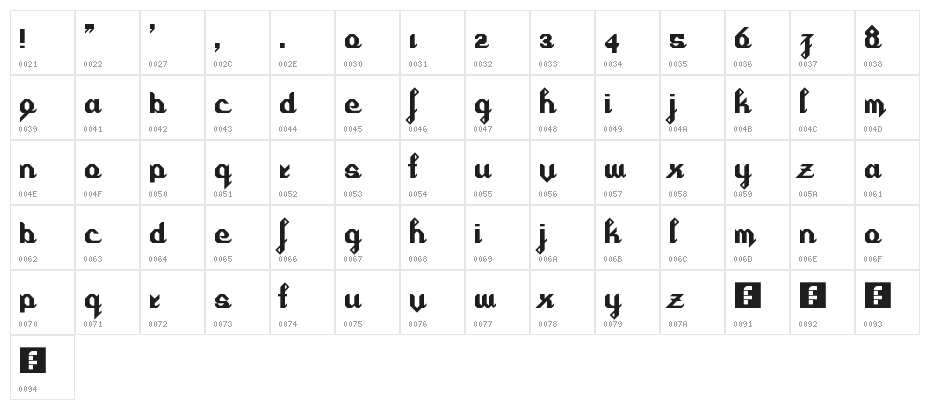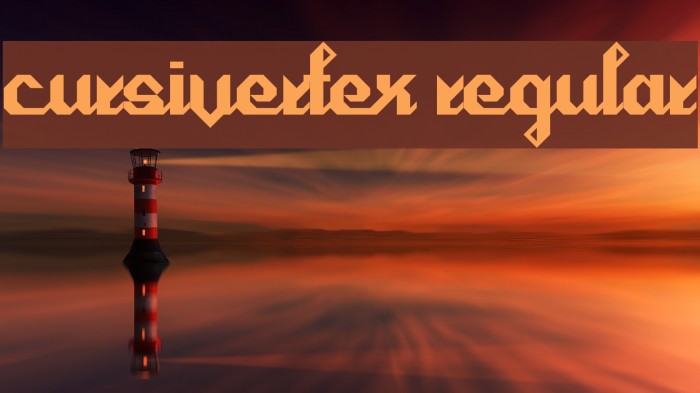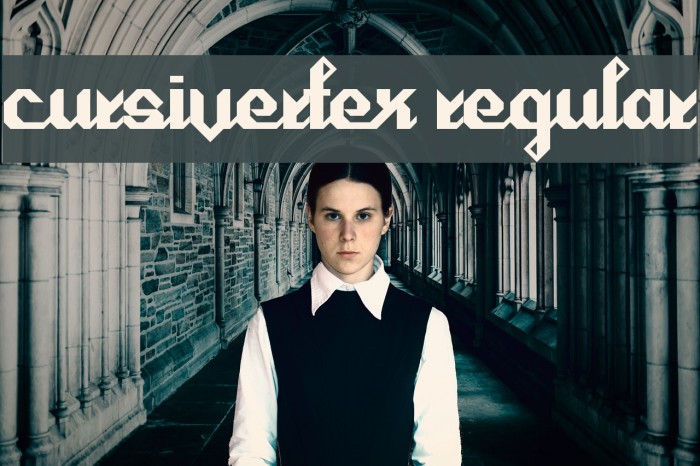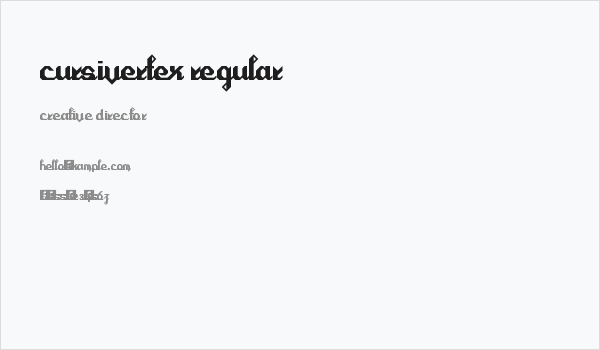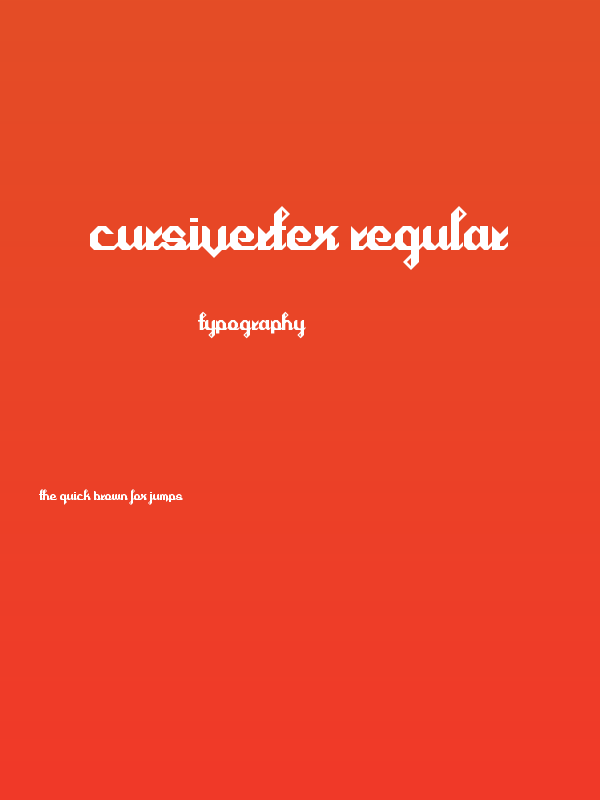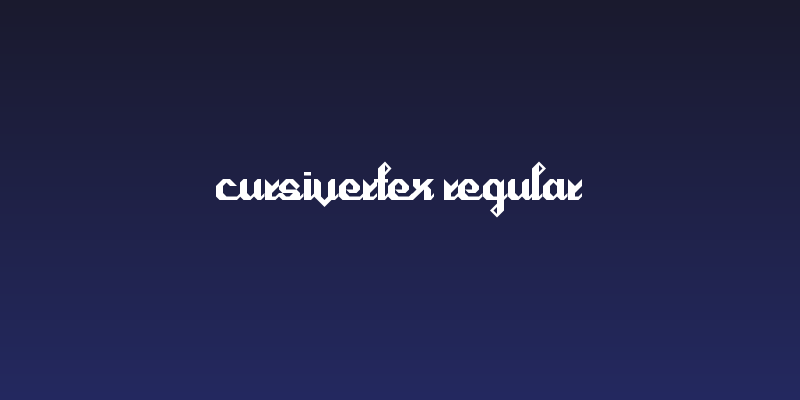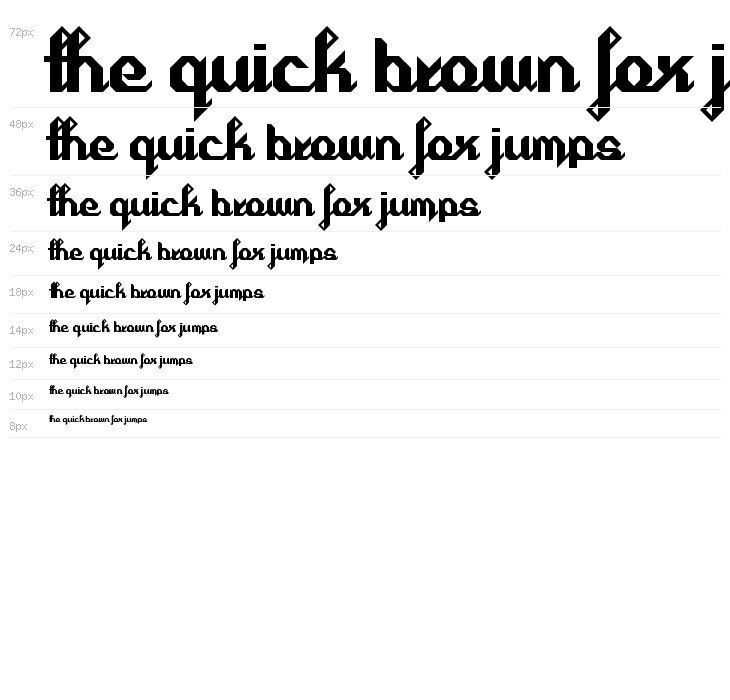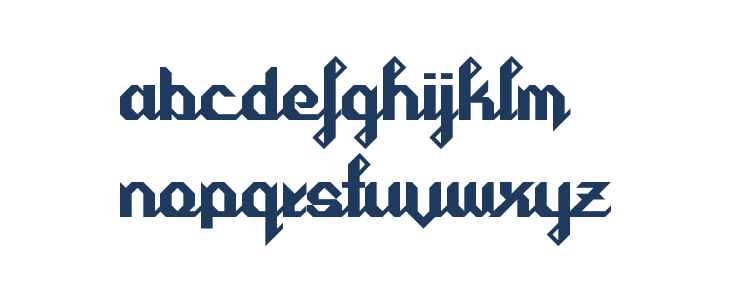
Cursivertex Regular Font
Cursivertex Regular Description
This font features a unique blend of geometric and angular elements, creating a striking and bold appearance. The characters are crafted with sharp edges and pointed terminals, giving it a modern and edgy look. The consistent use of angular strokes throughout the alphabet adds a cohesive and distinctive style. The numerals and special characters maintain this angular theme, ensuring uniformity across all glyphs. This font's design is reminiscent of futuristic or sci-fi aesthetics, making it ideal for projects that require a bold and unconventional typeface.
| Proposed Projects | Ideal for sci-fi themed designs, video game titles, posters, and branding that requires a modern and edgy look. |